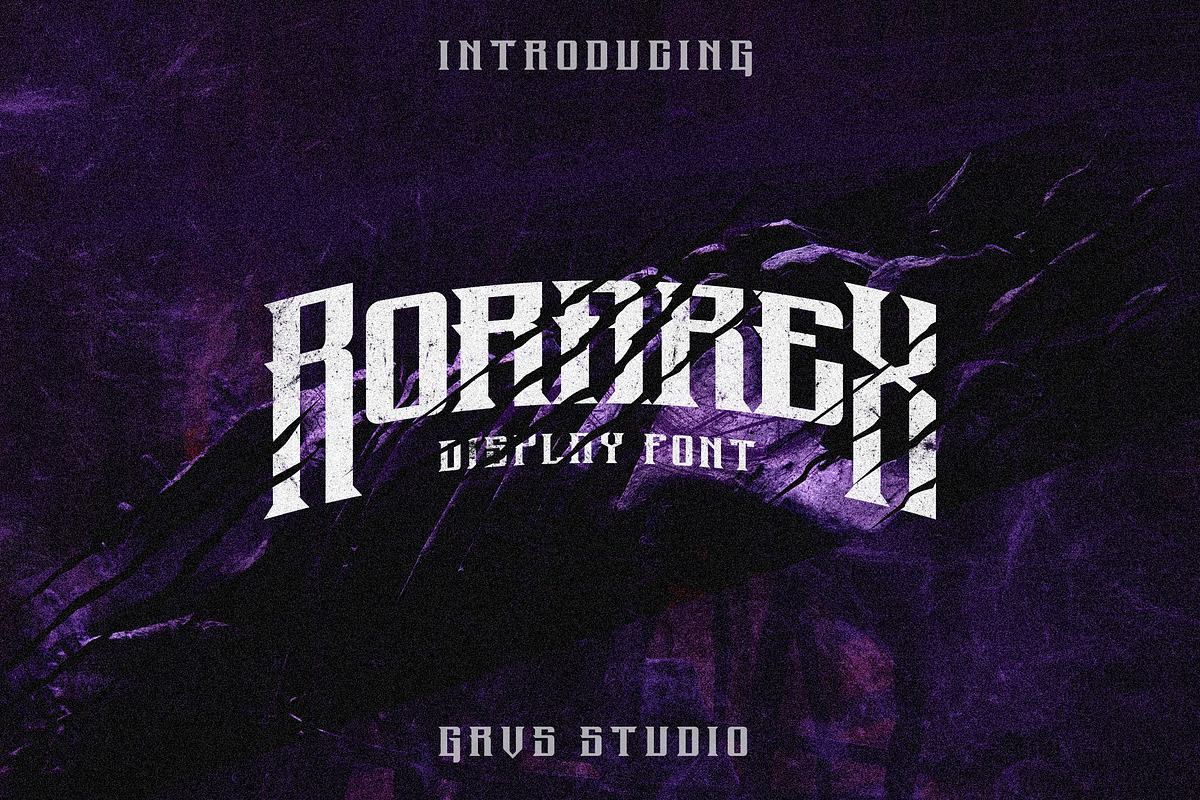
If you're searching for a bold and modern typeface that captures attention, look no further than Rorarex Font Free Download. This unique display font is designed with strong lines and a contemporary edge, making it a great choice for logos, posters, headlines, and branding projects. Whether you’re working on a high-impact website design or a standout marketing campaign, Rorarex delivers striking visual appeal.
Its sharp yet elegant letterforms make it suitable for both print and digital applications. With smooth curves and dynamic details, Rorarex gives any text a professional and creative touch. Designers and creatives love its versatility and style.